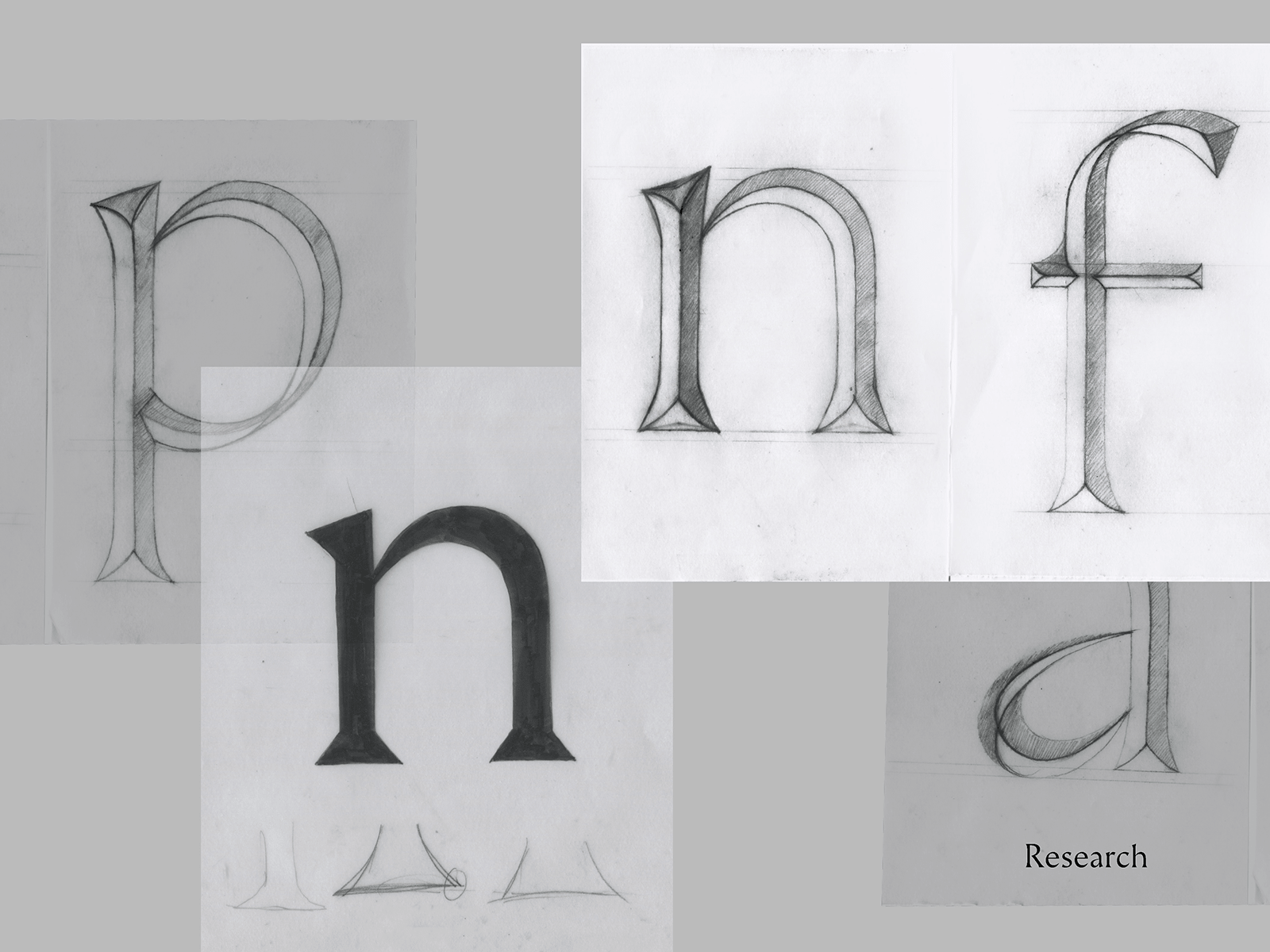
Ome
Ome is a contemporary humanistic font family. The name Ome means “grandmother” in latvian. In my brief I wanted to create a typeface for my grandmothers gravestone.
The main inspiration for my project was Trajan Inscriptions. When I started working on my letterforms, I didn’t have any references for lowercase letters, so I returned to my own calligraphic letter forms from our first week of TypeParis.
My research continued with how light visually effects carved letter forms, subtracting and altering them drastically. When I started to work on my Regular style I tried to replicate the same effect with my drawings to achieve the right weight proportions. Also, I choose to shorten the serif lengths to give the typeface a more unique character.
Ome typeface family comes in four weight styles and one display. It has sharp, pointy serifs, light curves and high contract connections.